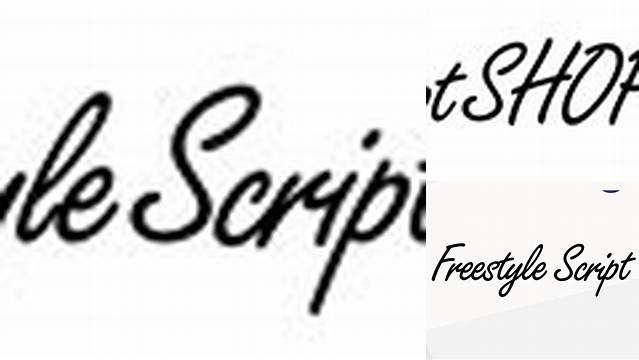
Font Freestyle Script SH Alt: A Comprehensive Guide
Hey guys! Ever stumbled upon a font that just oozes personality and flair? Well, let’s dive deep into the world of Font Freestyle Script SH Alt. This font is a real gem, perfect for adding a touch of elegance and playfulness to your designs. We're going to explore everything about it, from its history and characteristics to how you can best use it. Get ready to become a Font Freestyle Script SH Alt expert!
What is Font Freestyle Script SH Alt?
So, what exactly is Font Freestyle Script SH Alt? At its core, it's a script font, meaning it mimics the flowing strokes of handwriting. But it's not just any script font; it's got a unique twist that sets it apart. The "SH Alt" part usually indicates an alternate version, giving you even more stylistic choices to play with. Font Freestyle Script SH Alt is all about bringing a personal, hand-crafted feel to your digital projects. Its flowing lines and unique letterforms make it ideal for invitations, logos, and anything where you want to convey a sense of warmth and authenticity. Using Font Freestyle Script SH Alt helps your designs stand out.
The History and Evolution of Script Fonts
To really appreciate Font Freestyle Script SH Alt, it helps to understand where script fonts come from. Script fonts have been around for ages, evolving from traditional calligraphy and hand-lettering. Early script fonts were often used in formal documents and invitations to convey elegance and sophistication. Over time, as printing technology advanced, script fonts became more diverse, ranging from formal and ornate to casual and playful. The evolution of script fonts reflects changing tastes and design trends. Nowadays, you can find script fonts in all sorts of styles, each with its own unique personality. Font Freestyle Script SH Alt fits into this diverse landscape by offering a modern take on classic script styles.
Key Characteristics of Font Freestyle Script SH Alt
What makes Font Freestyle Script SH Alt stand out from the crowd? Well, it’s all in the details! This font typically features flowing, connected letterforms that mimic natural handwriting. You'll often find elegant swashes and loops that add a touch of flair. The "Alt" version usually includes alternate characters or stylistic sets, giving you more options to customize your text. The x-height (the height of the lowercase letters) and ascender/descender lengths (the parts of letters that extend above or below the baseline) contribute to its overall visual appeal. It's these little details that make Font Freestyle Script SH Alt so special and versatile.
Ideal Use Cases for Font Freestyle Script SH Alt
Okay, so you're digging the Font Freestyle Script SH Alt vibes, but where can you actually use it? This font shines in projects that need a personal and elegant touch. Think wedding invitations, greeting cards, and thank-you notes. It’s also a great choice for branding projects, especially for businesses that want to convey a sense of creativity and authenticity. Logos, websites, and social media graphics can all benefit from the unique charm of this font. Font Freestyle Script SH Alt is perfect for adding a human touch to your digital designs.
Pairing Font Freestyle Script SH Alt with Other Fonts
One of the keys to great typography is pairing fonts effectively. Since Font Freestyle Script SH Alt is a script font, it's best to pair it with a clean and simple sans-serif or serif font. This creates a nice contrast and ensures that your text is easy to read. For example, you could pair Font Freestyle Script SH Alt with a font like Open Sans or Montserrat for body text. Alternatively, you could use a classic serif font like Times New Roman for a more traditional look. The goal is to create a harmonious balance between the decorative script font and the more functional body text. Experimenting with different font pairings is key to finding the perfect combination. When pairing Font Freestyle Script SH Alt, consider readability.
Font Freestyle Script SH Alt for Branding
If you're looking to create a brand identity that feels personal and approachable, Font Freestyle Script SH Alt can be a fantastic choice. Its elegant and flowing letterforms can help convey a sense of creativity and sophistication. Whether you're designing a logo, website, or marketing materials, this font can add a unique touch that sets your brand apart. Font Freestyle Script SH Alt works particularly well for brands in the beauty, fashion, and lifestyle industries. Its versatility allows it to adapt to different branding styles and create a memorable visual identity. Ensure your Font Freestyle Script SH Alt branding reflects your brand values.
Font Freestyle Script SH Alt in Web Design
In the world of web design, typography plays a crucial role in creating a visually appealing and user-friendly experience. Font Freestyle Script SH Alt can be used to add a touch of personality and elegance to your website. Use it sparingly for headings, titles, or short phrases to create visual interest. Avoid using it for large blocks of text, as script fonts can be difficult to read on screen. When using Font Freestyle Script SH Alt in web design, make sure to optimize it for web use. This means using a web-friendly format and ensuring that the font loads quickly to avoid slowing down your website. Also, be mindful of contrast and legibility to ensure that your text is easy to read on different devices.
Font Freestyle Script SH Alt for Print Materials
Font Freestyle Script SH Alt isn't just for digital designs; it can also be used effectively in print materials. Its elegant and flowing letterforms make it a great choice for invitations, greeting cards, and other printed documents. When using Font Freestyle Script SH Alt in print, make sure to use a high-resolution version of the font to ensure that it looks crisp and clear. Also, be mindful of the printing process and choose paper and ink that complement the font's style. Experiment with different colors and textures to create a unique and memorable design.
Font Freestyle Script SH Alt and Social Media
Social media is all about visual appeal, and Font Freestyle Script SH Alt can help you create eye-catching graphics that stand out in the crowd. Use it for quotes, captions, or short messages to add a touch of personality to your posts. Font Freestyle Script SH Alt can be particularly effective for creating social media graphics for events, promotions, or announcements. When using Font Freestyle Script SH Alt on social media, make sure to optimize it for different platforms. This means using the correct image sizes and resolutions and ensuring that the font is legible on small screens.